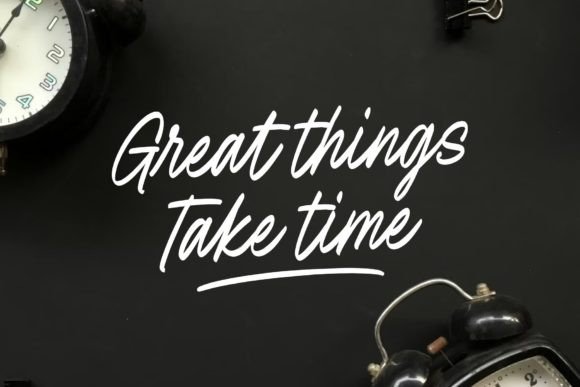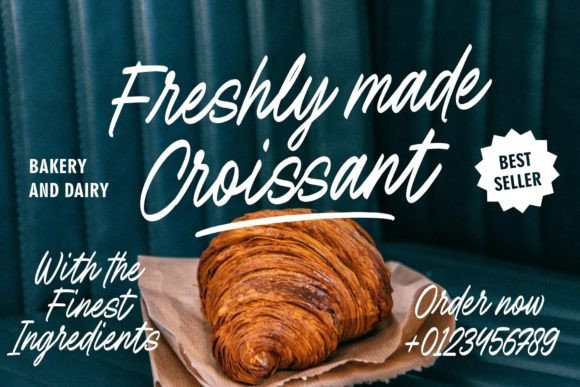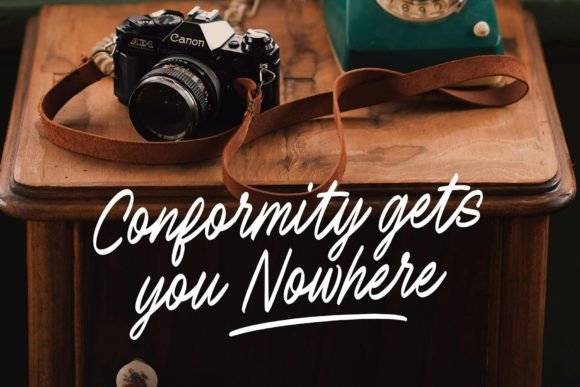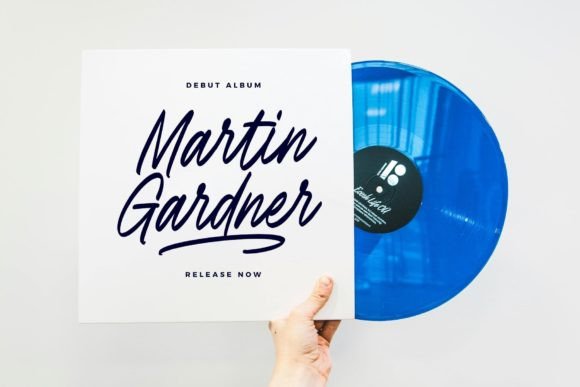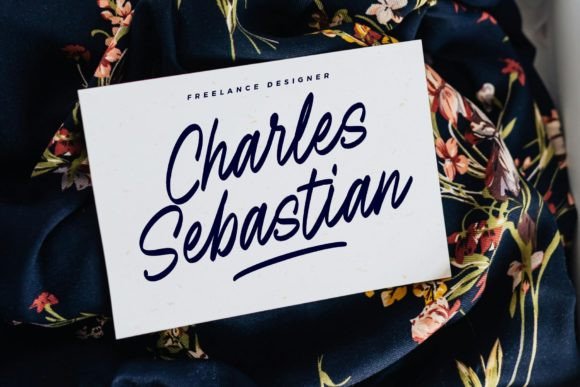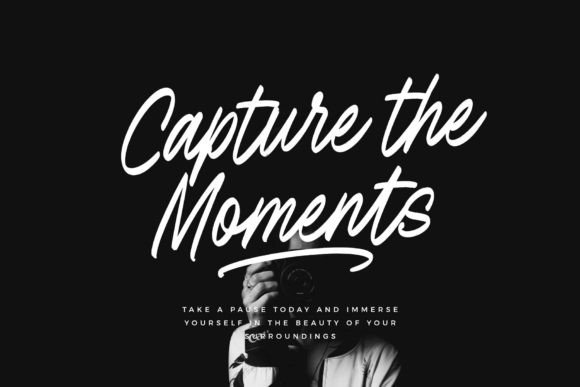
Unleash the Power of Authentic Black Font: Elevate Your Designs with Bold, Hand-Painted Typography
Are you tired of using the same old fonts that lack personality and flair? Look no further than Authentic Black, a bold and versatile brush script typeface that’s sure to bring raw energy and character to your designs. With its dynamic brushstrokes and rugged letterforms, this font captures the essence of hand-painted typography, making it ideal for projects that demand a powerful, expressive feel.
What Makes Authentic Black Font So Special?
Authentic Black is more than just a font – it’s an experience. Its bold, hand-painted style is reminiscent of street art and graffiti, adding a unique, handcrafted touch to any creative work. The font’s dynamic brushstrokes and rugged letterforms give it a distinctive, organic feel that’s perfect for designers and crafters looking to add some edge to their projects.
Perfect for Casual and Daring Applications
Whether you’re working on a casual, laid-back project or something more daring and avant-garde, Authentic Black font is the perfect choice. Its versatility and expressiveness make it suitable for a wide range of applications, from:
- Logos and branding: Add a bold, eye-catching touch to your logo or brand identity with Authentic Black font.
- Posters and flyers: Create striking, attention-grabbing posters and flyers that demand to be noticed.
- Social media graphics: Elevate your social media presence with bold, hand-painted typography that sets you apart from the crowd.
- Packaging and product design: Add a unique, handcrafted touch to your product packaging and design.
Key Features of Authentic Black Font
So what makes Authentic Black font so special? Here are just a few of its key features:
- Bold and versatile: Authentic Black font is designed to make a statement, with bold, dynamic brushstrokes and rugged letterforms.
- Hand-painted feel: The font’s hand-painted style gives it a unique, organic feel that’s perfect for designers and crafters looking for a distinctive look.
- Expressive and emotive: Authentic Black font is designed to evoke emotions and add personality to your designs.
Tips for Using Authentic Black Font
To get the most out of Authentic Black font, here are a few tips to keep in mind:
- Use it sparingly: Authentic Black font is bold and attention-grabbing, so use it sparingly to avoid overwhelming your design.
- Experiment with colors: The font looks great in bold, bright colors, so don’t be afraid to experiment and find the perfect hue for your design.
- Pair it with contrasting fonts: Pair Authentic Black font with contrasting fonts to create visual interest and add depth to your design.
| Font Name | Authentic Black Font |
| Author | Damarletter |